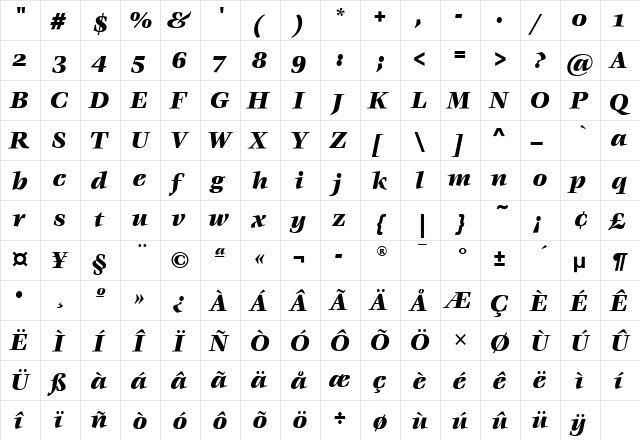
VeljovicMdOSITC Black Italic
Design Context for VeljovicMdOSITC Typeface
VeljovicMdOSITC takes a measured approach to typography — its balanced proportions and neutral character make it a reliable workhorse for both digital and print work. The slanted form adds forward momentum and visual energy.
Pro Tip: Try VeljovicMdOSITC for annotation and caption copy alongside an upright companion — the contrast in angle creates a dynamic but ordered typographic system.